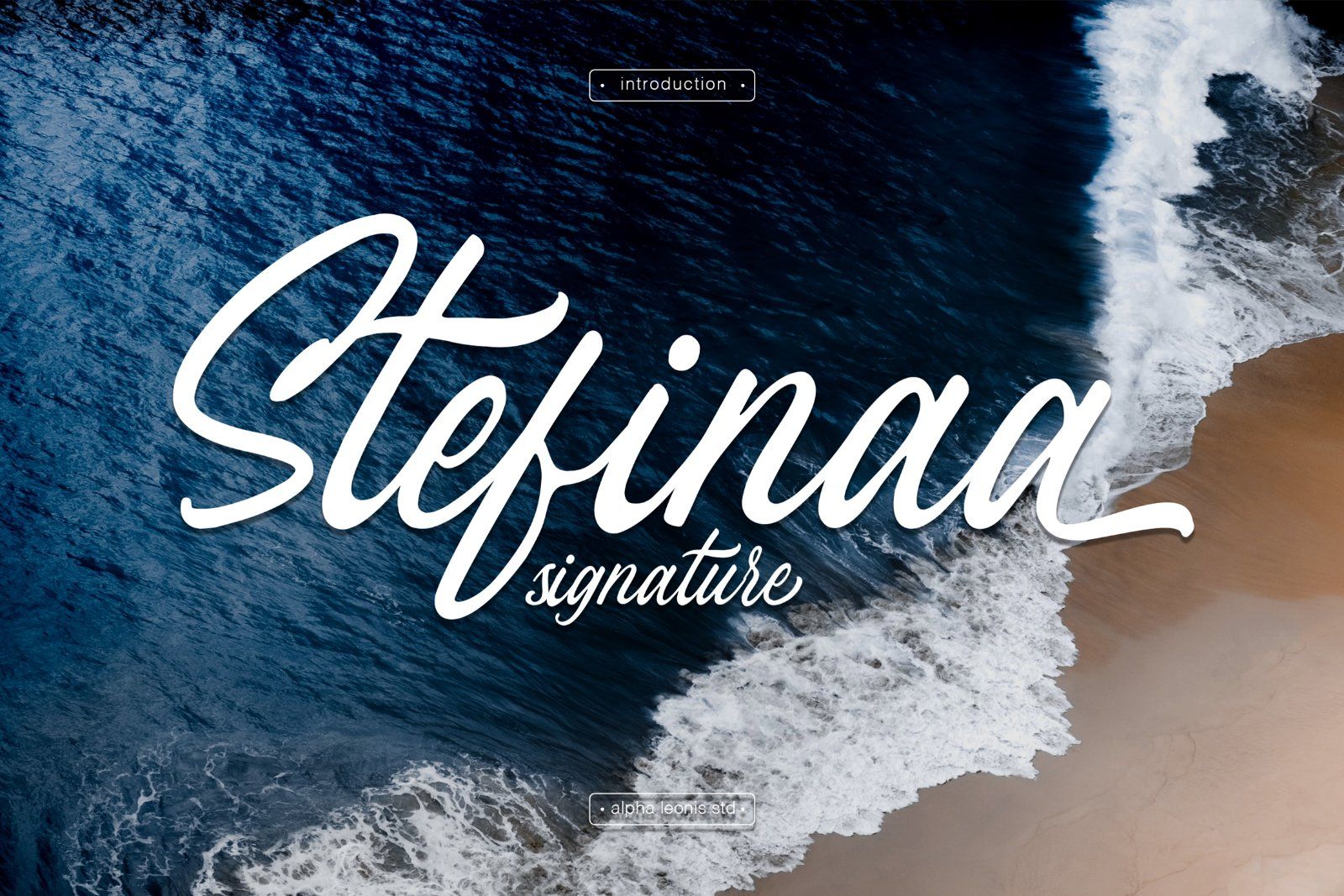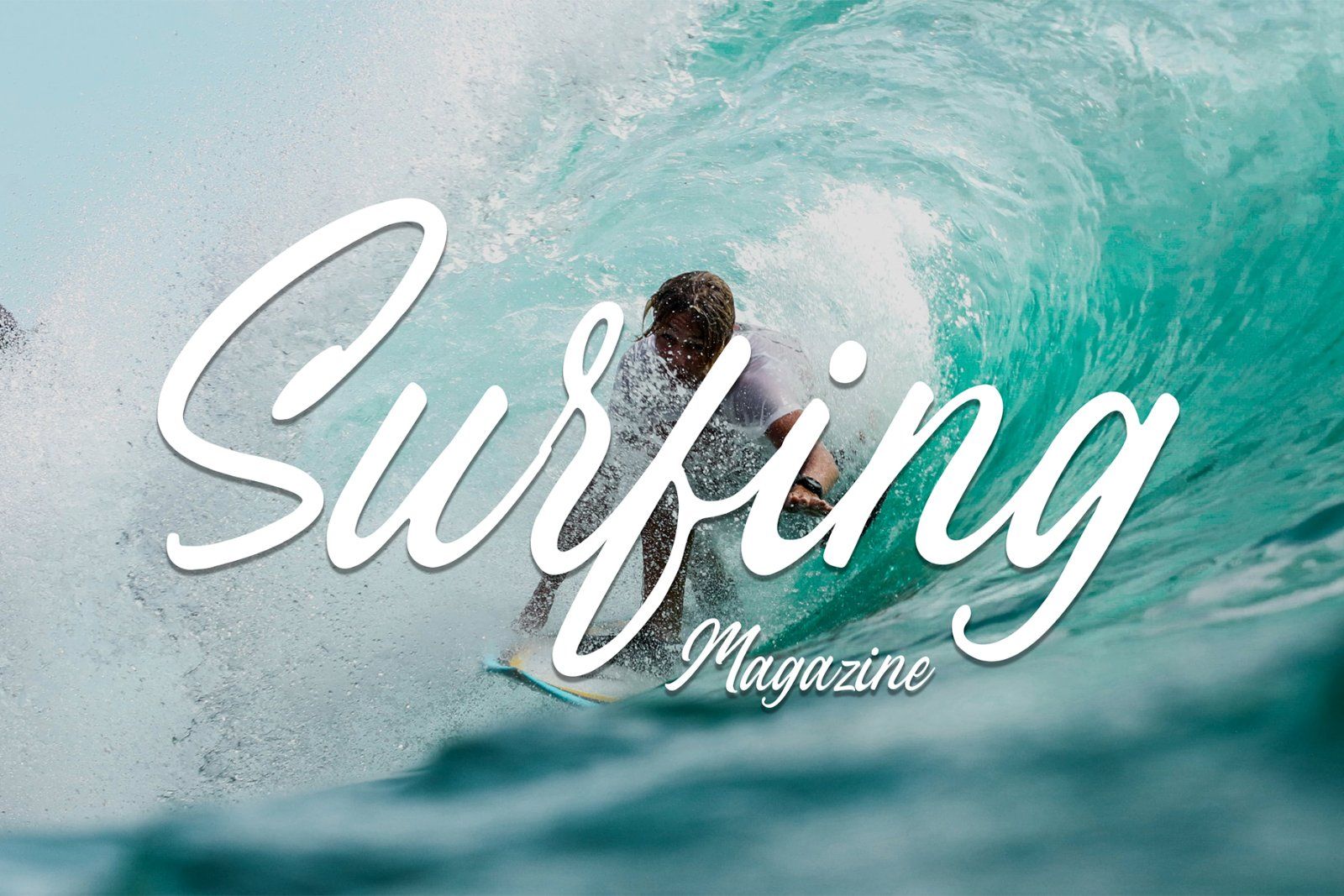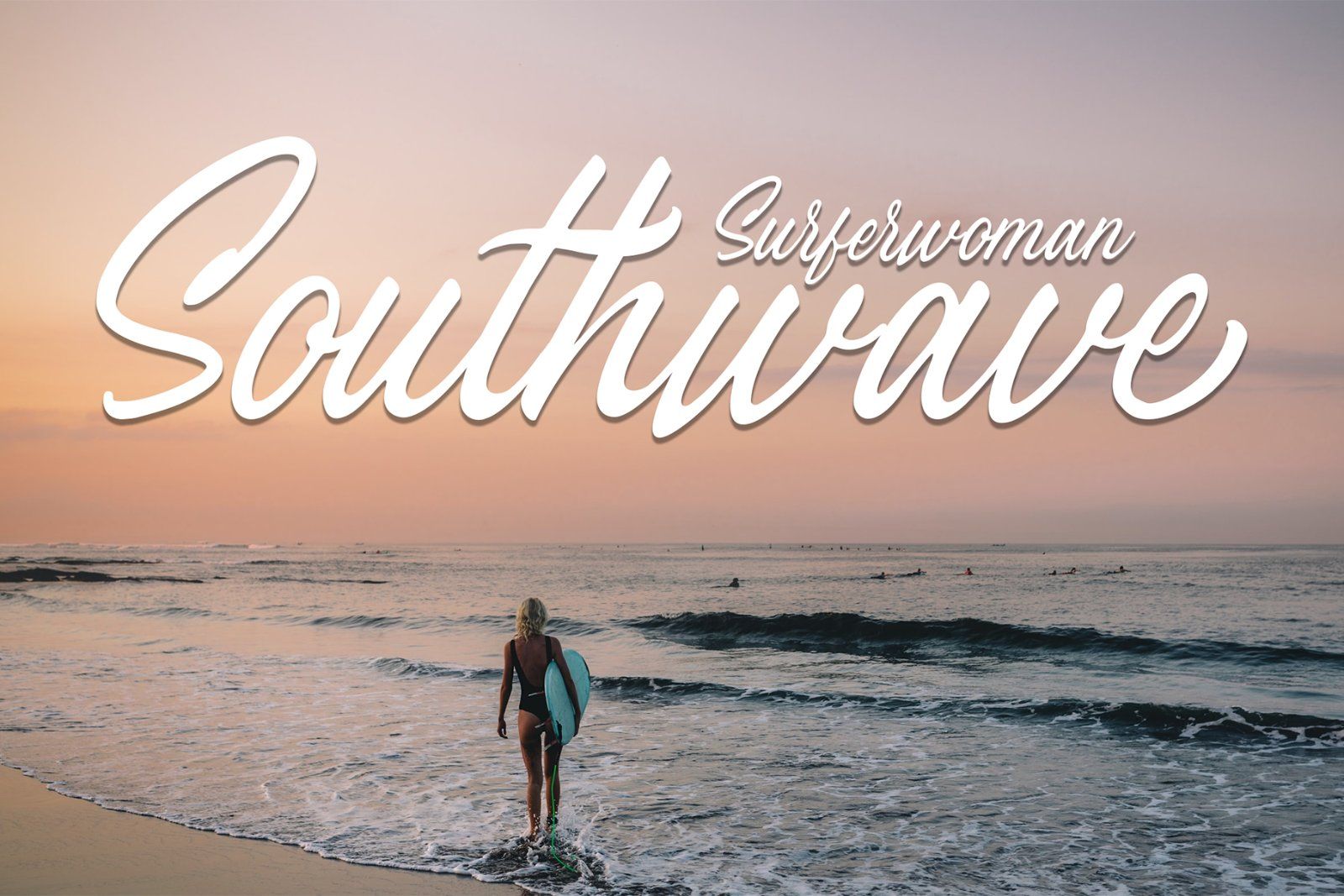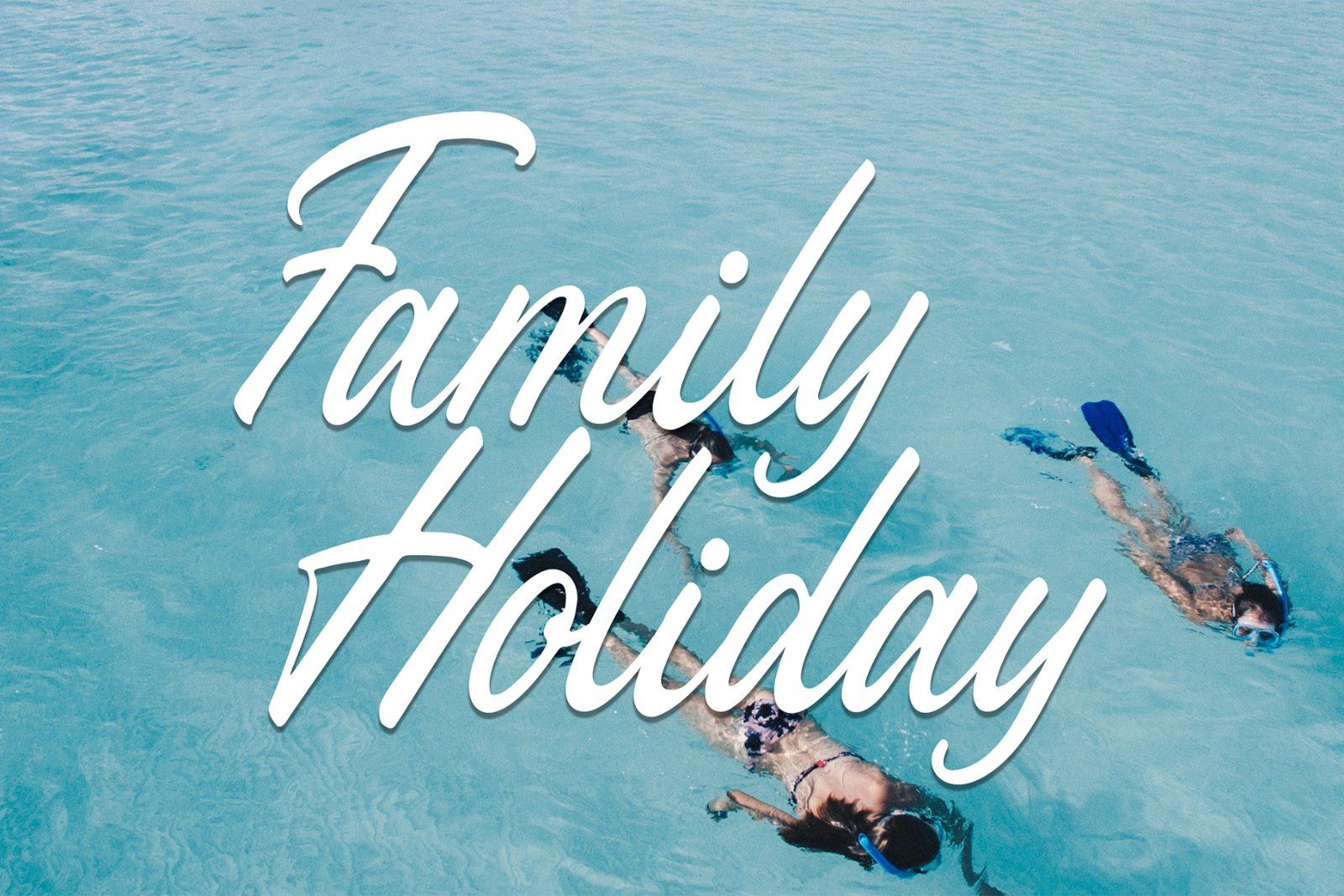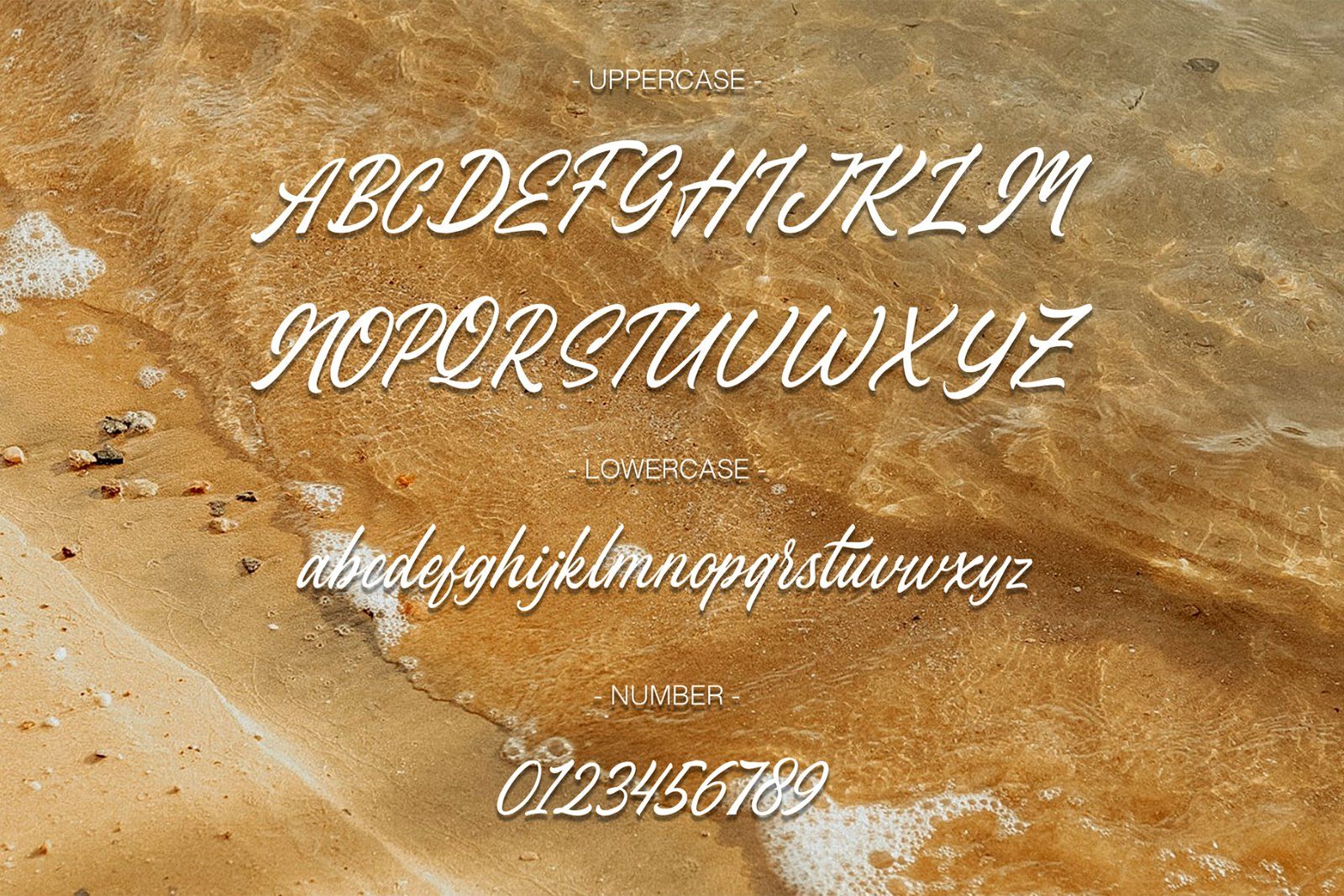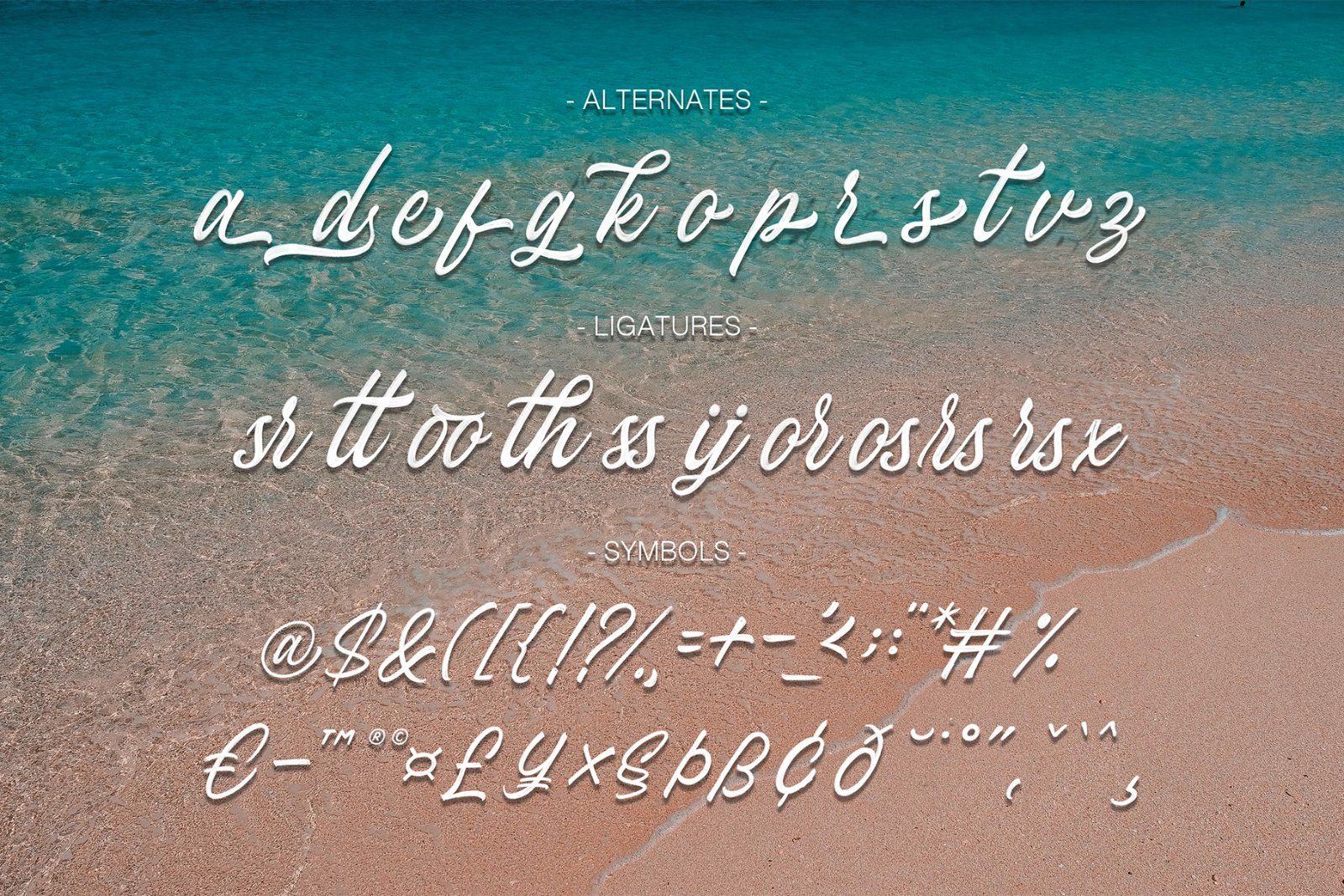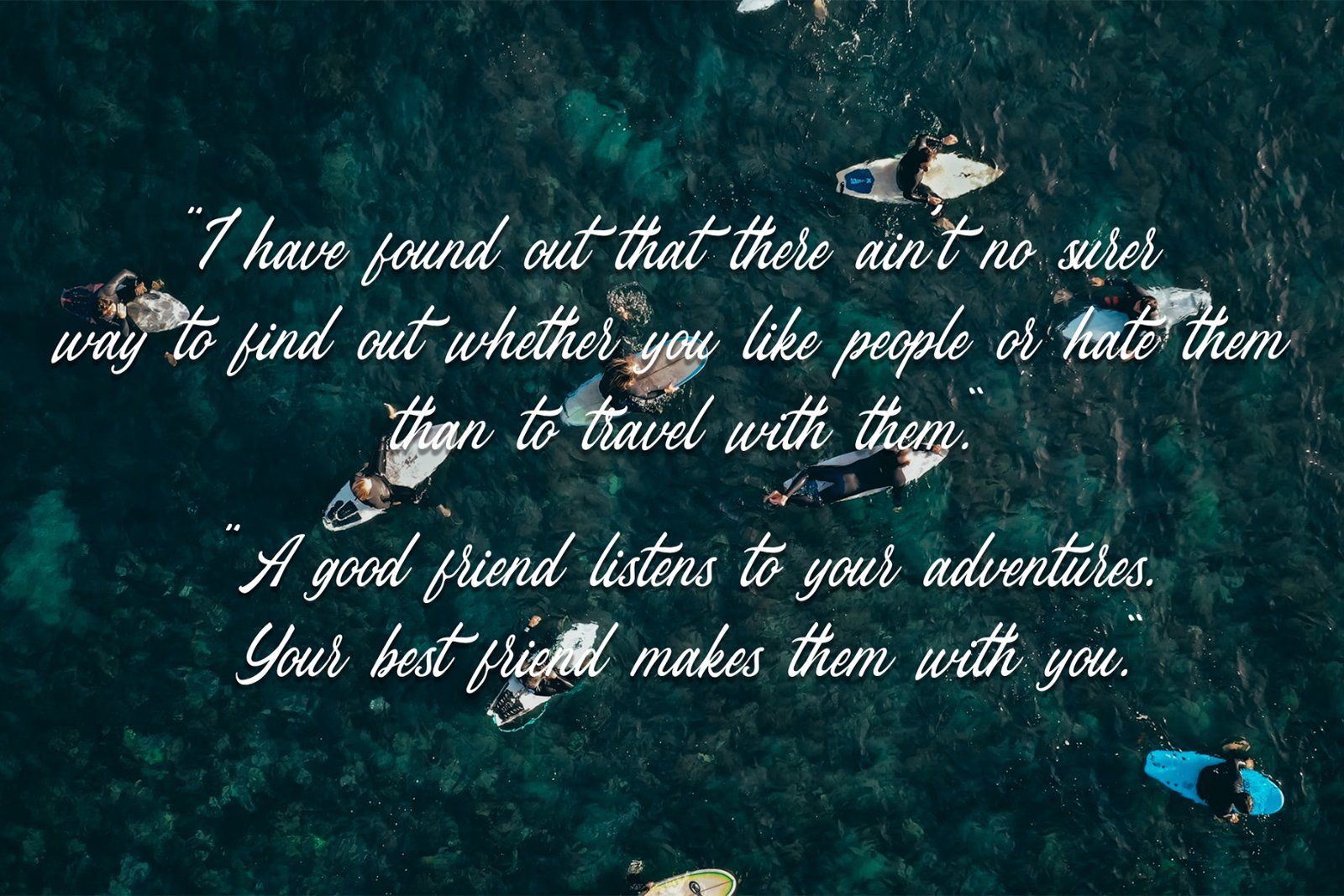
Stefina Signature - Modern Script
Introducing the new Stefina Signature a modern script handwritten font !!! For those of you who are needing a touch of elegant, simple, natural and modernity for your designs, this font was created for you!Stefina Signature was built with OpenType features and includes ligatures, alternates, begining and numbers it also supports your work design. The font has Great for head title, printed quotes, greeting card, invitation, wedding, events and etc